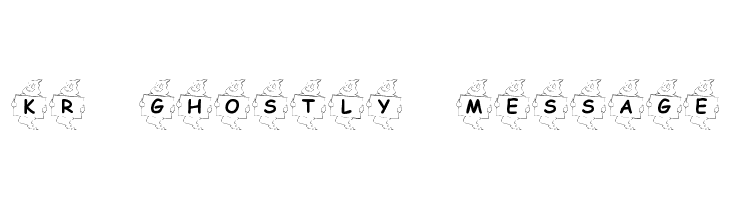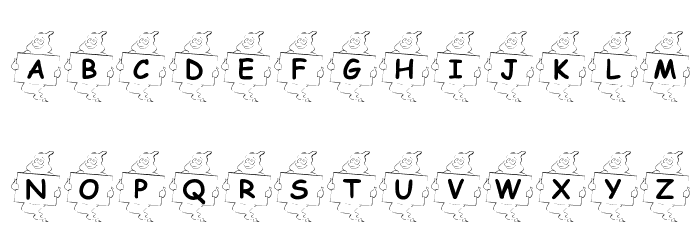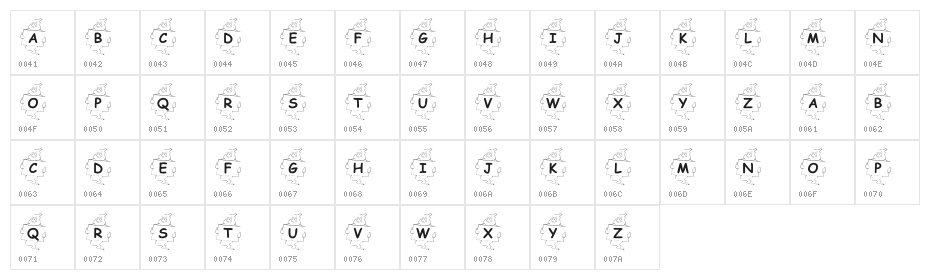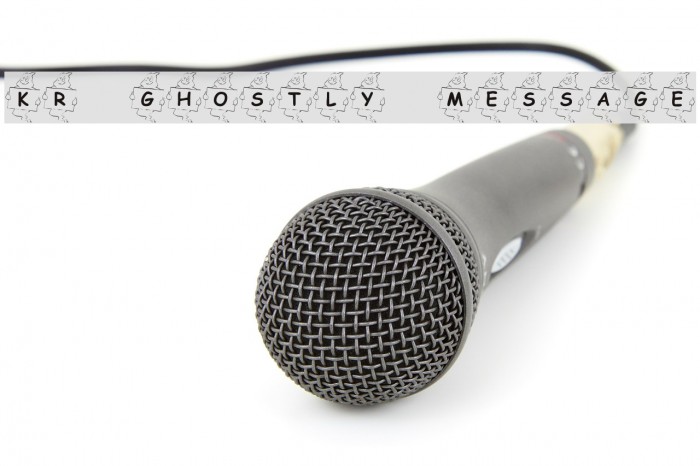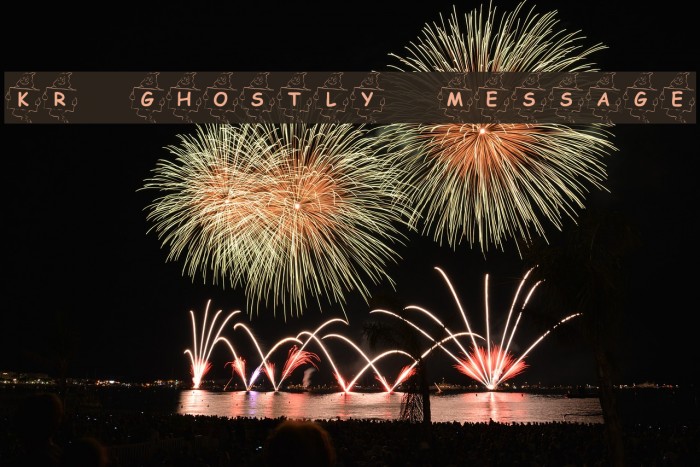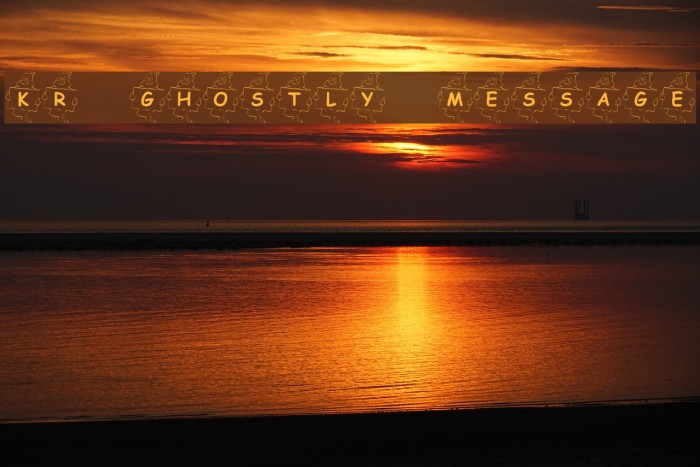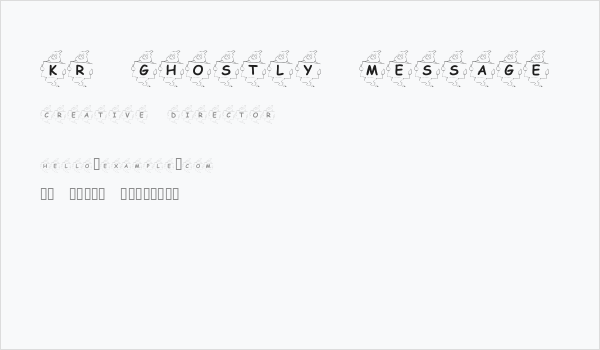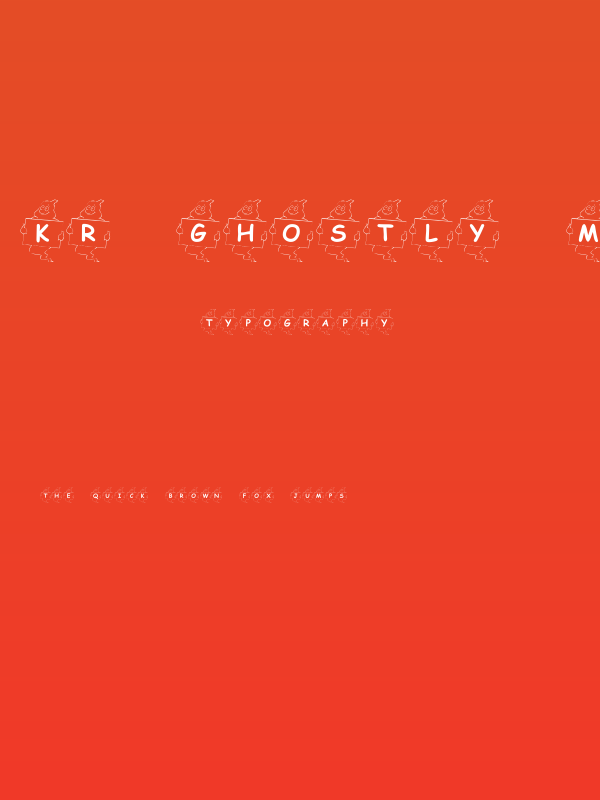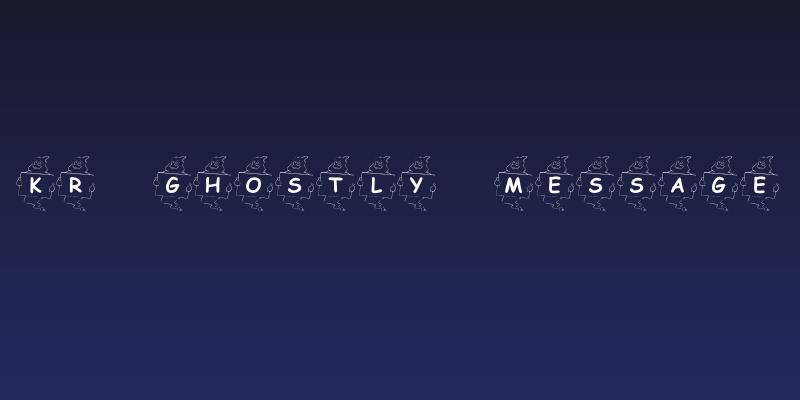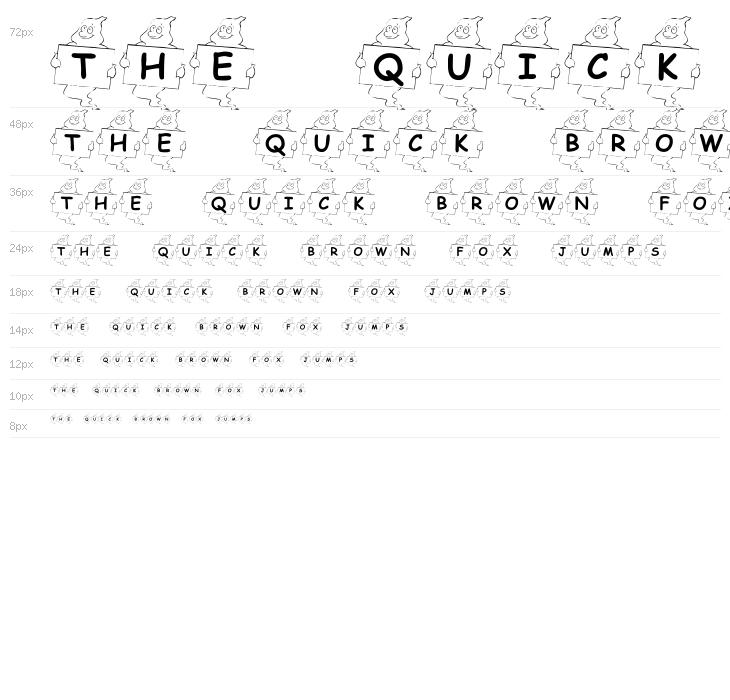
KR Ghostly Message Font
KR Ghostly Message Description
This playful and whimsical font features each letter encased within a cartoon ghost character. The letters themselves are bold and sans-serif, providing a clear and legible appearance. The ghostly figures add a unique and fun element, making it ideal for Halloween-themed projects or any design that requires a touch of humor and creativity. The font maintains a consistent style throughout, with each character uniformly presented within its ghostly frame, ensuring visual coherence and charm.
| Overall Style | Whimsical |
| Proposed Projects | Ideal for Halloween invitations, children's party decorations, playful greeting cards, and themed event posters. |